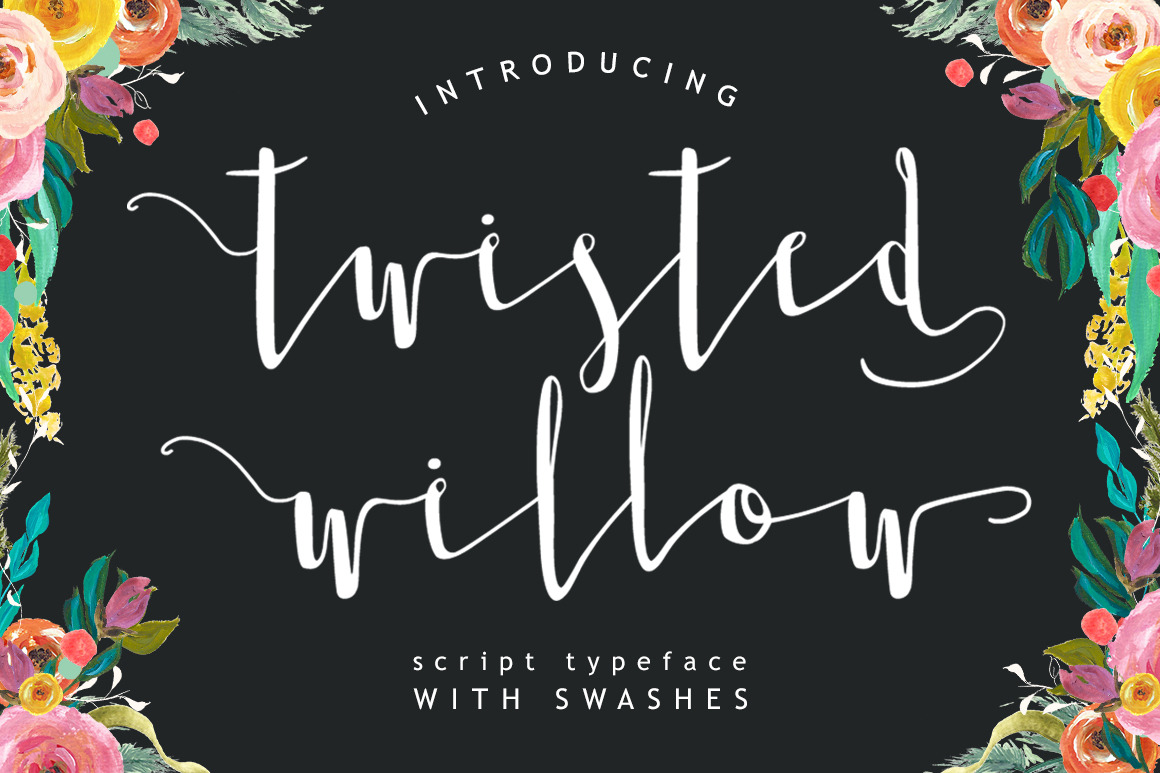
Twisted Willow Typeface Font
Please welcome the newest Creativeqube Design Font - Twisted Willow Script
A sleek hand drawn calligraphy script with initial and terminal swashes, and alternate upper and lower swashes.